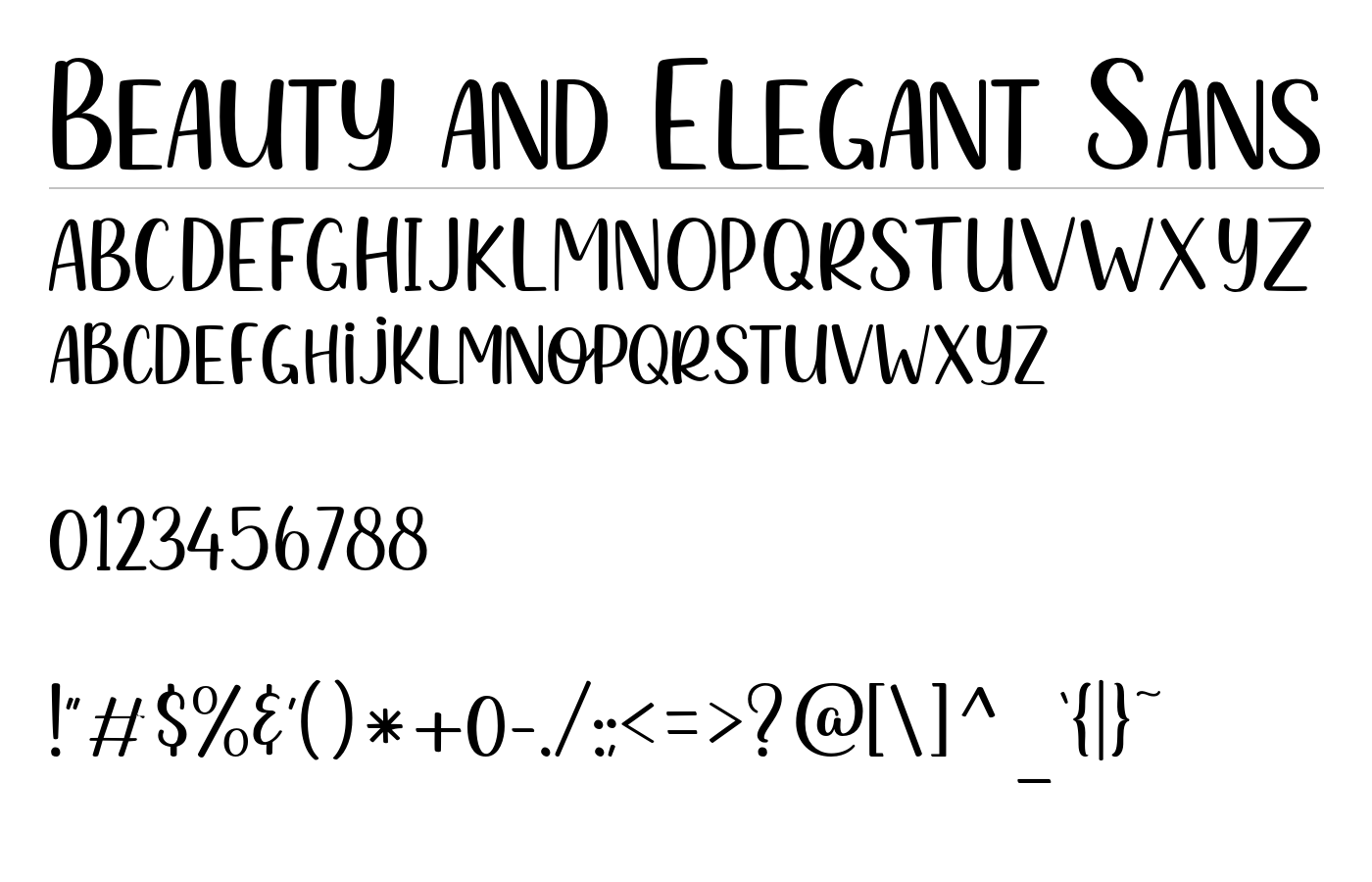
Beauty and Elegant Sans is a playful and charming sans serif font that features tall, narrow letterforms with a hand-drawn feel. Its light weight and slightly irregular strokes give it a friendly and approachable personality, making it ideal for informal branding, playful headlines, and creative projects that want to convey warmth and uniqueness. This font works well where relaxed elegance and a personal touch are desired, such as in lifestyle blogs, children’s products, or casual invitations.
Beauty and Elegant Sans Font
About Beauty and Elegant Sans Font